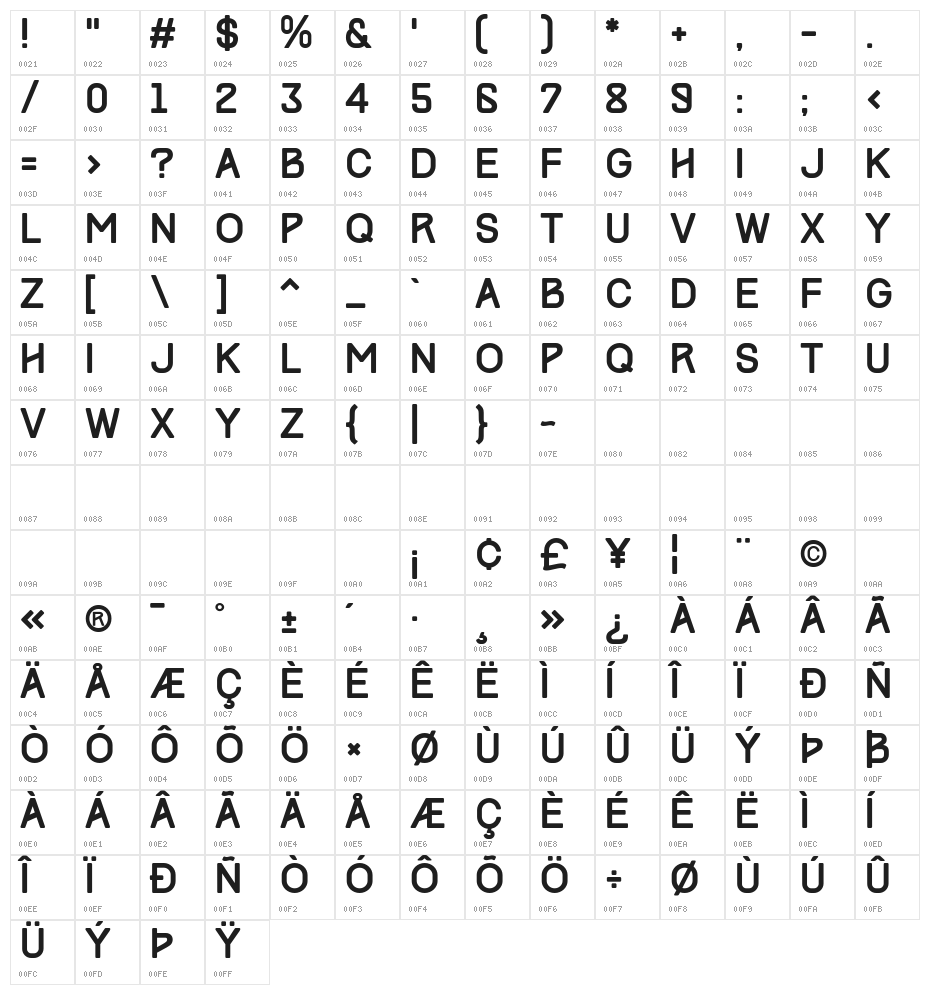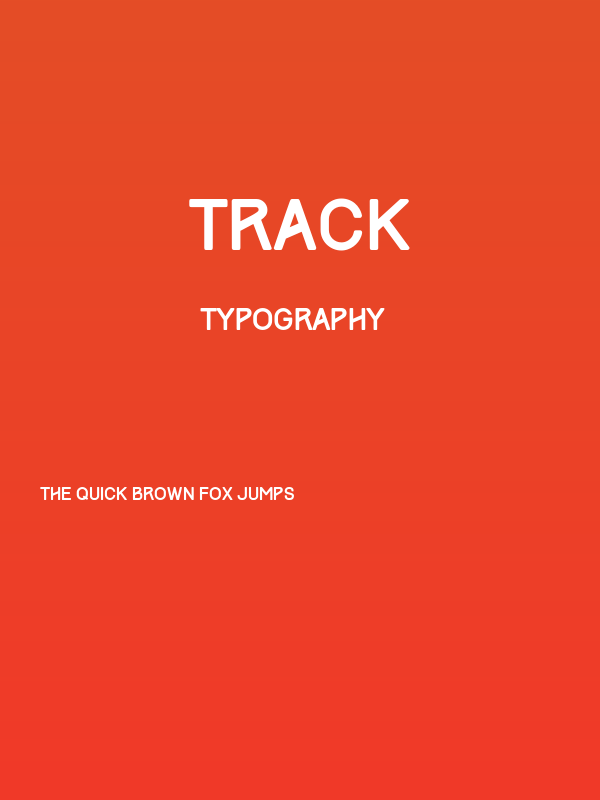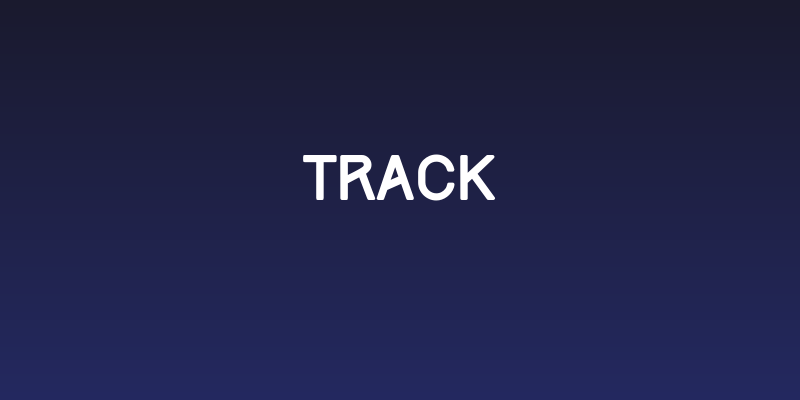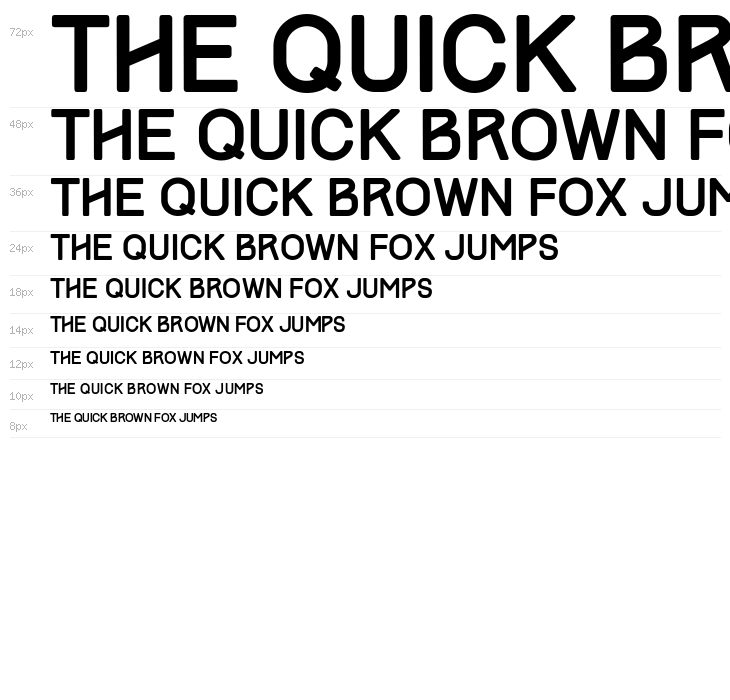
Track Font
Track Description
This font features a clean and modern sans-serif style with uniform stroke widths, providing a balanced and professional appearance. The characters are well-proportioned, with a geometric influence that enhances readability. The uppercase and lowercase letters maintain a consistent design, while the numerals are clear and distinct. Special characters are included, offering versatility for various applications. The overall design is straightforward, making it suitable for both digital and print media.
| Use Case | Headlines, Body text, Logos |
| Proposed Projects | Ideal for branding, web design, corporate materials, and editorial layouts. |